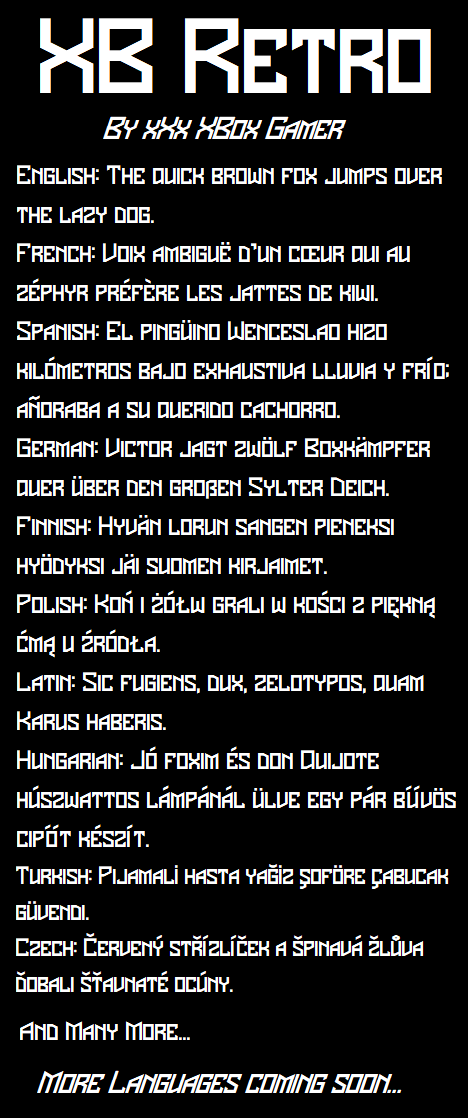
Greek and Cyrillic coming Soon...
Added more accent marks... I get fatigued when trying to create tons of letters with accent marks at once...
I'll add accents Soon.
It has its character. 0 vs. O? Yes, with diacritics it might withdraw a few ambiguities from this very strict design.
Accents Added.
Added Latin-A
Added More accents.
This Sample is Out of Date...
Here is an Updated Sample.
I like the letters themselves. They have a strong imposing feel to them. I think the spaces ought to be just a little longer however, to make the imposing nature of each word stand out.
A 'F0NT'…